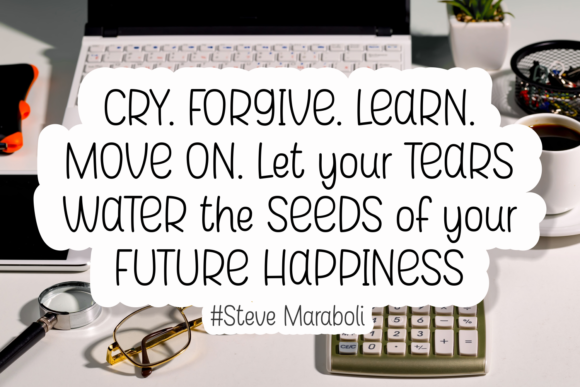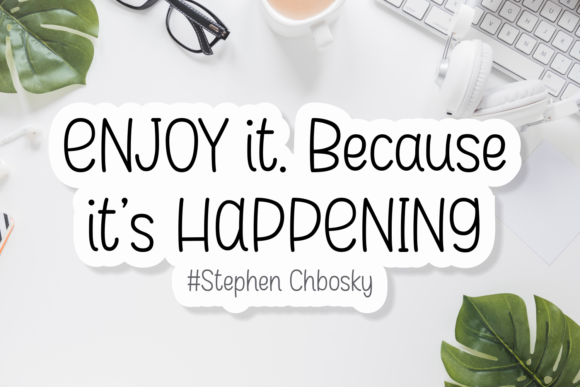
Something Happiness Font
Something Happiness is a gorgeous handwritten font designed to bring a beautiful and refreshing look to your creative designs. This typeface is crafted with attention to detail, making it an excellent choice for a variety of applications, including books, quotes, headlines, posters, magazines, branding, logos, t-shirts, fashion, and more.
The beauty of Something Happiness lies in its handwritten style, which adds a personal and authentic touch to your projects. Whether used for crafting quotes that resonate with emotion, creating eye-catching headlines, or enhancing the visual appeal of posters and magazines, this font offers a versatile and elegant aesthetic.
Its versatility allows Something Happiness to adapt seamlessly to different design contexts, making it suitable for a wide range of creative applications. The font’s refreshing look adds a touch of uniqueness to your branding, logos, and fashion-related projects, ensuring that your designs stand out with a distinctive charm.
In summary, Something Happiness is more than just a font; it’s a gorgeous handwritten typeface that infuses beauty and refreshment into your designs. Whether applied to books, quotes, headlines, posters, or various branding elements, this font is designed to bring a captivating and authentic feel to your creative projects. With Something Happiness, your designs are sure to evoke a sense of beauty and positivity.